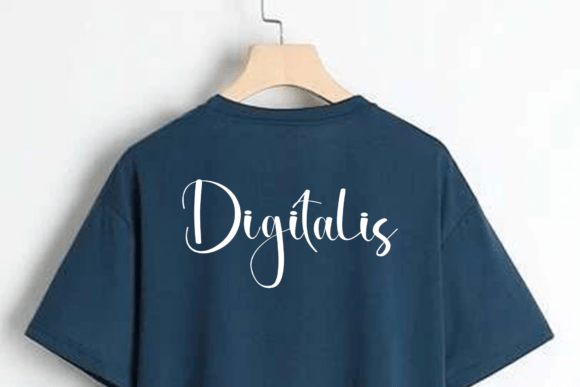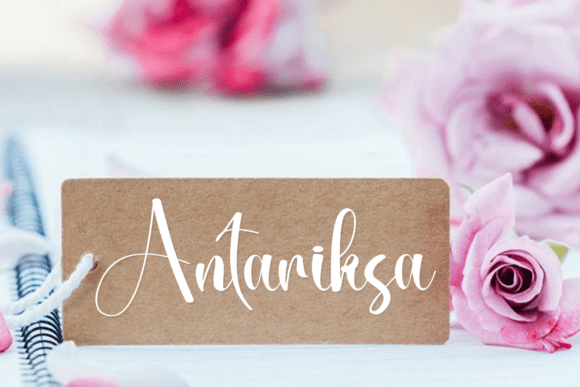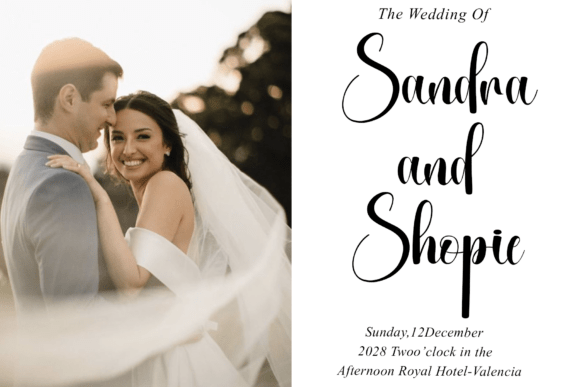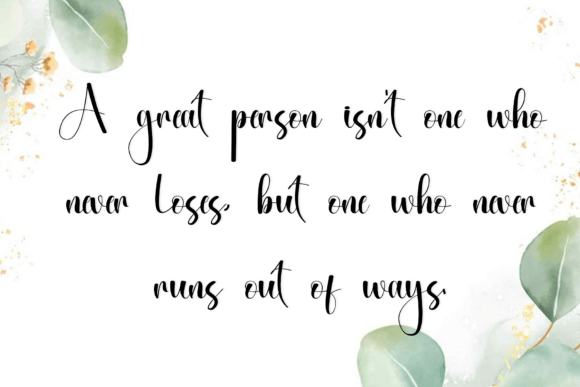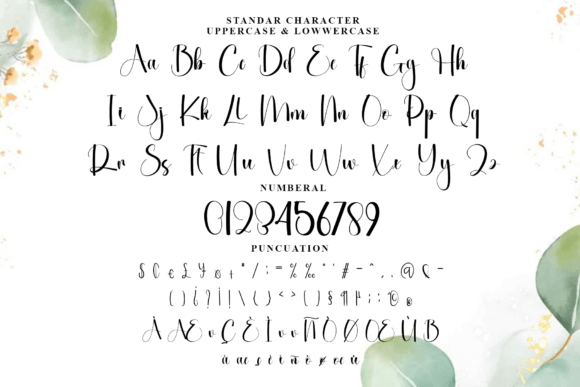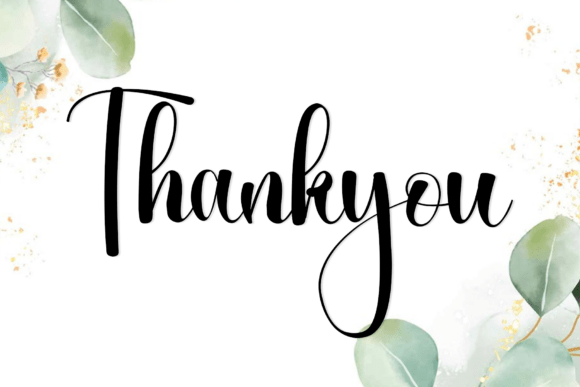
The Greatings Font: Elevating Your Design with Elegance and Clarity
Have you ever been in the midst of working on a project, and suddenly, you’re struck by the realization that something’s missing? For me, it was a recent branding project for an outdoor gear company. I was struggling to find the perfect font that could evoke a sense of adventure, while still being clean and sophisticated. That’s when I stumbled upon the Greatings Font, and it completely transformed my design.
A Personal Review: What I Love and What to Consider
- ✅ The tall, thin strokes with a subtle, airy slant give Greatings a refined aesthetic that’s perfect for designs that require a touch of elegance.
- ✅ The clean and approachable style makes it ideal for travel photography, branding for outdoor gear, and sophisticated web design.
- ✅ The font’s versatility allows it to work well in both digital and print formats.
- ⚠️ Some of the letters, such as the lowercase “k” and “q”, have a slightly narrower width, which might require manual kerning for optimal results.
- ⚠️ The font’s subtle slant might not be suitable for designs that require a more dramatic or bold typography.
The Designer Inspiration Behind Greatings Font
The Greatings Font was designed with the intention of creating a unique and professional entry into the modern handwritten collection. The designer aimed to evoke a sense of clarity and crisp elegance, perfect for designs that require a touch of sophistication and refinement. The font’s subtle slant and tall, thin strokes were inspired by the clean lines and minimalist aesthetic of modern design.
Q: What type of designs is Greatings Font best suited for?
A: Greatings Font is ideal for travel photography, branding for outdoor gear, and sophisticated web design. Its clean and approachable style makes it versatile for various design applications.
Q: Is Greatings Font available in different weights or styles?
A: Greatings Font is available in a single weight, but it features a range of OpenType features, including stylistic alternates and glyphs, that allow for added flexibility and customization.